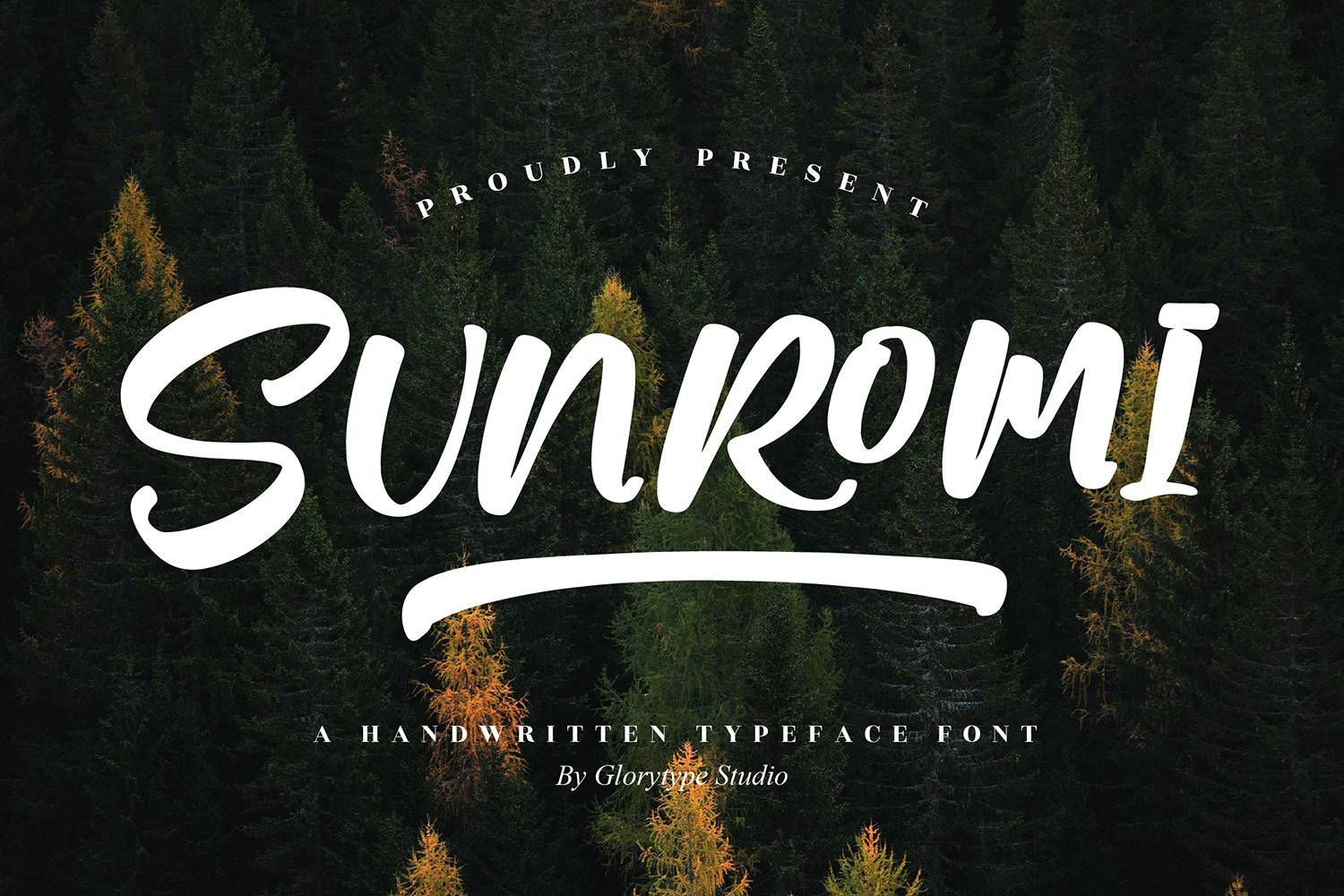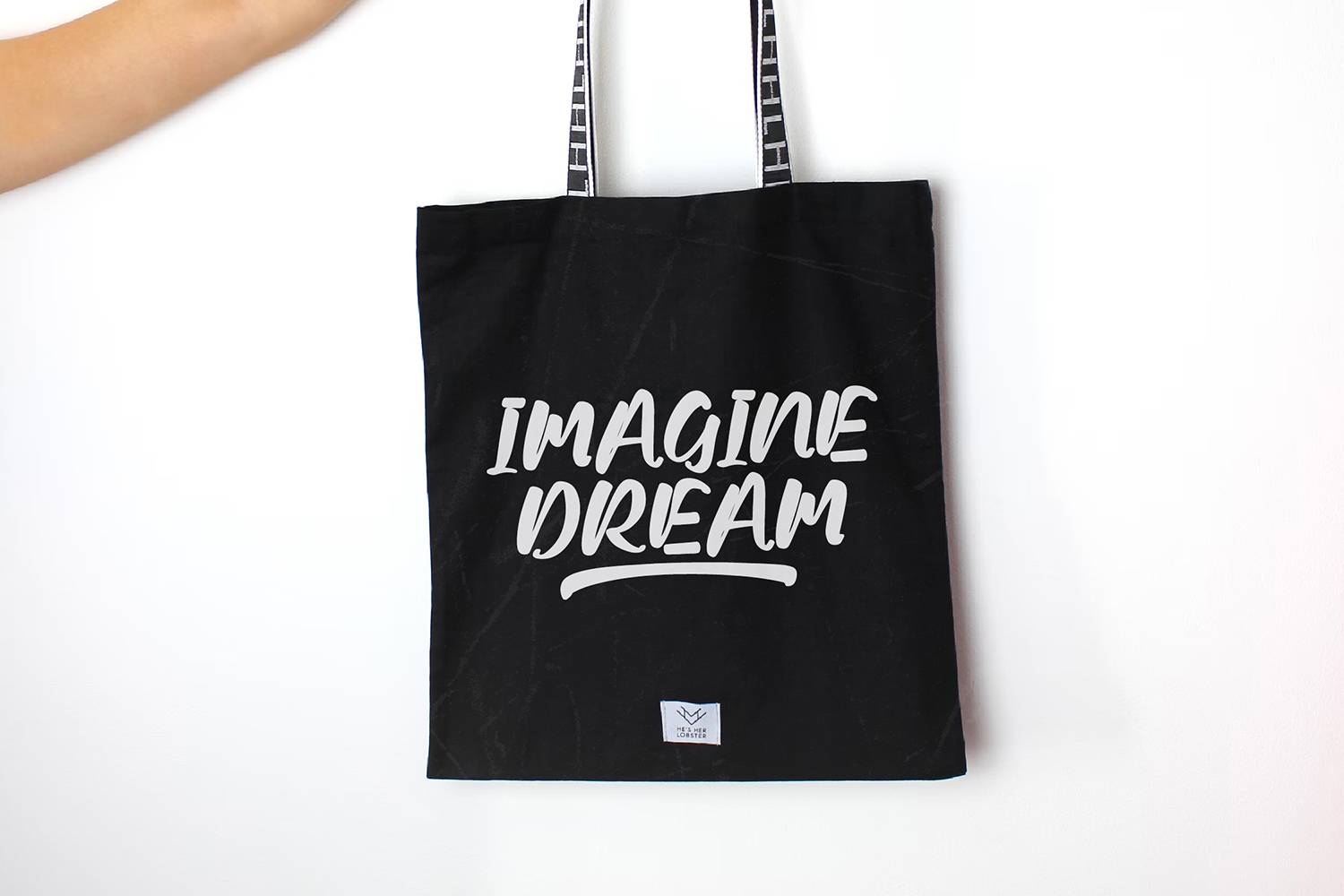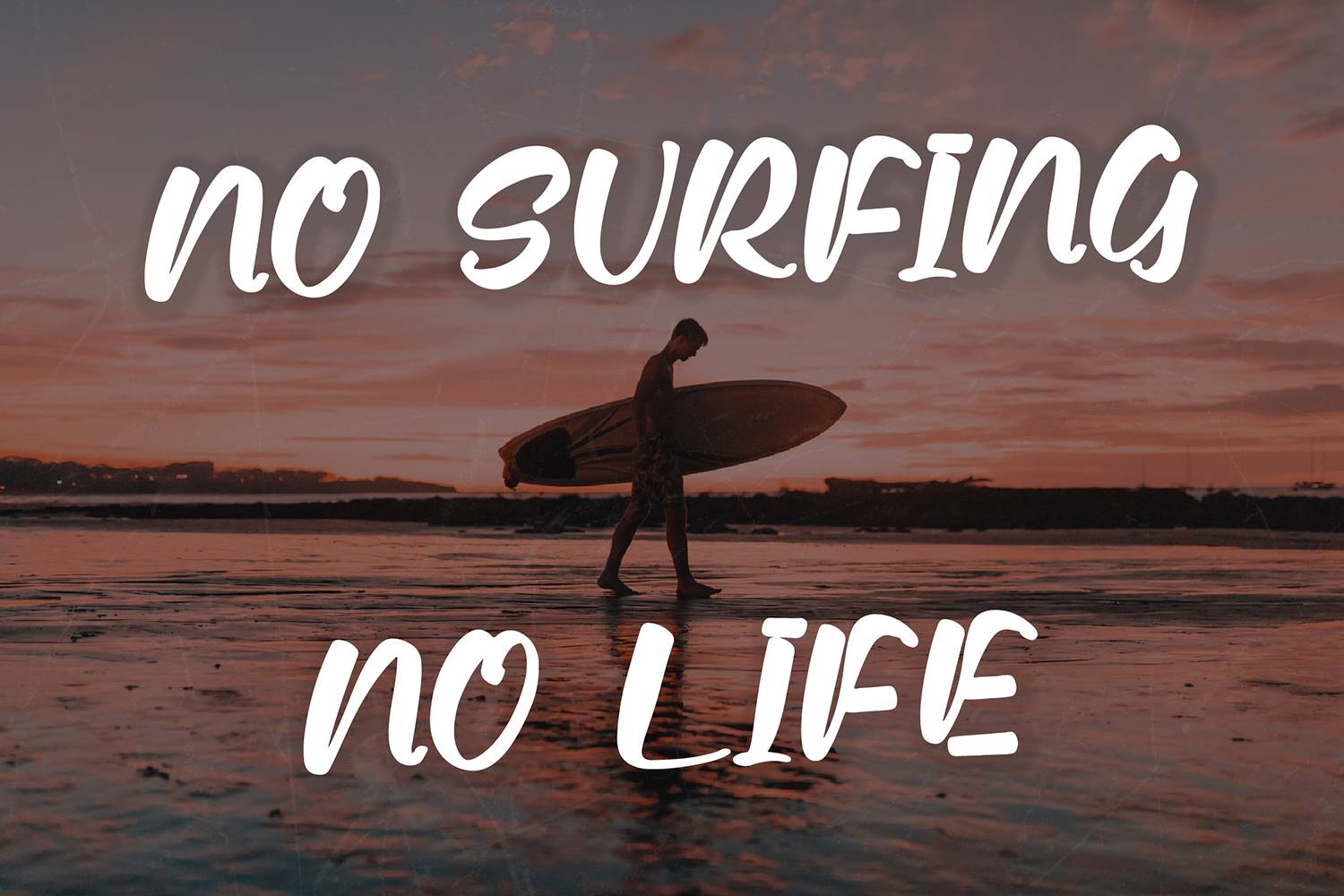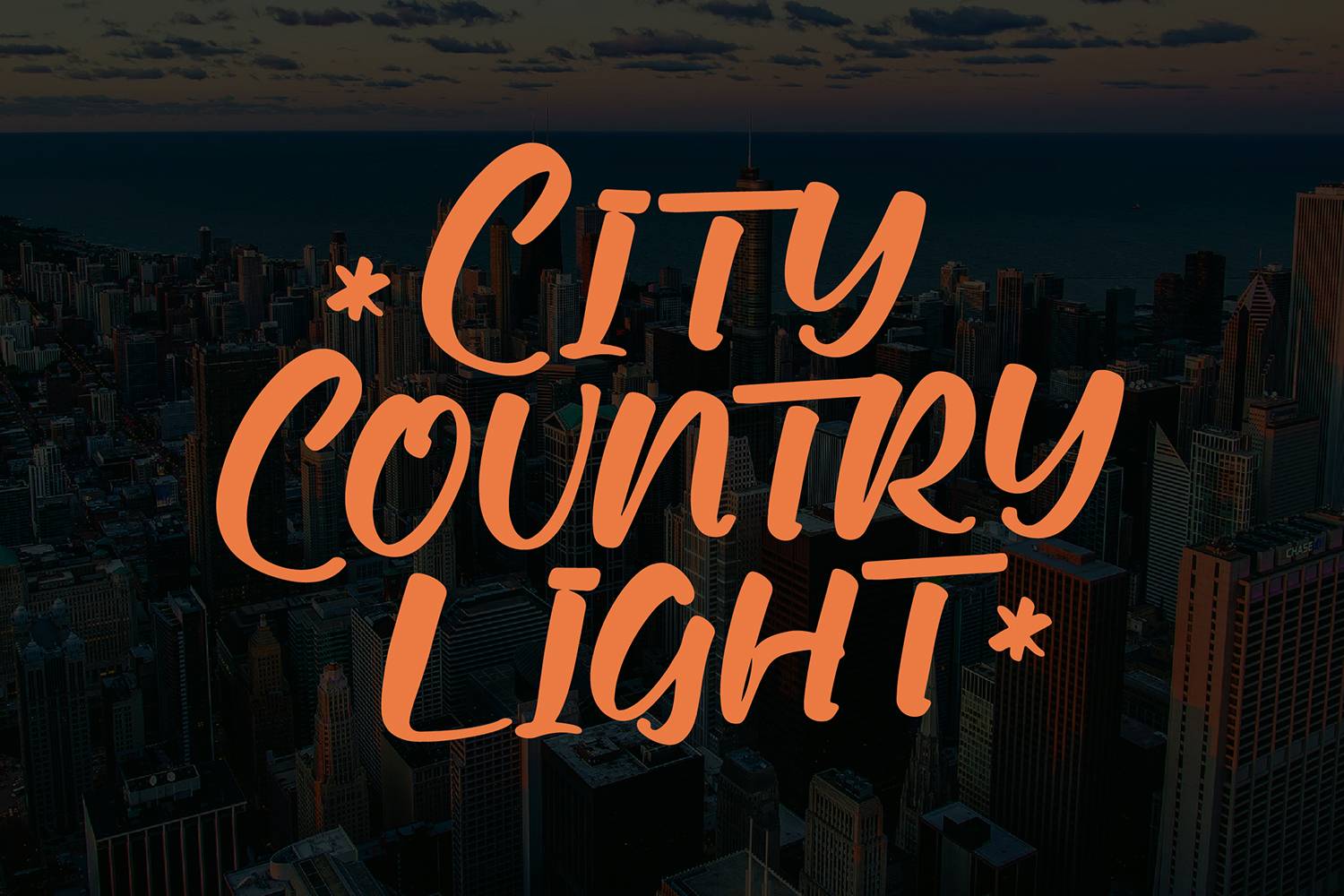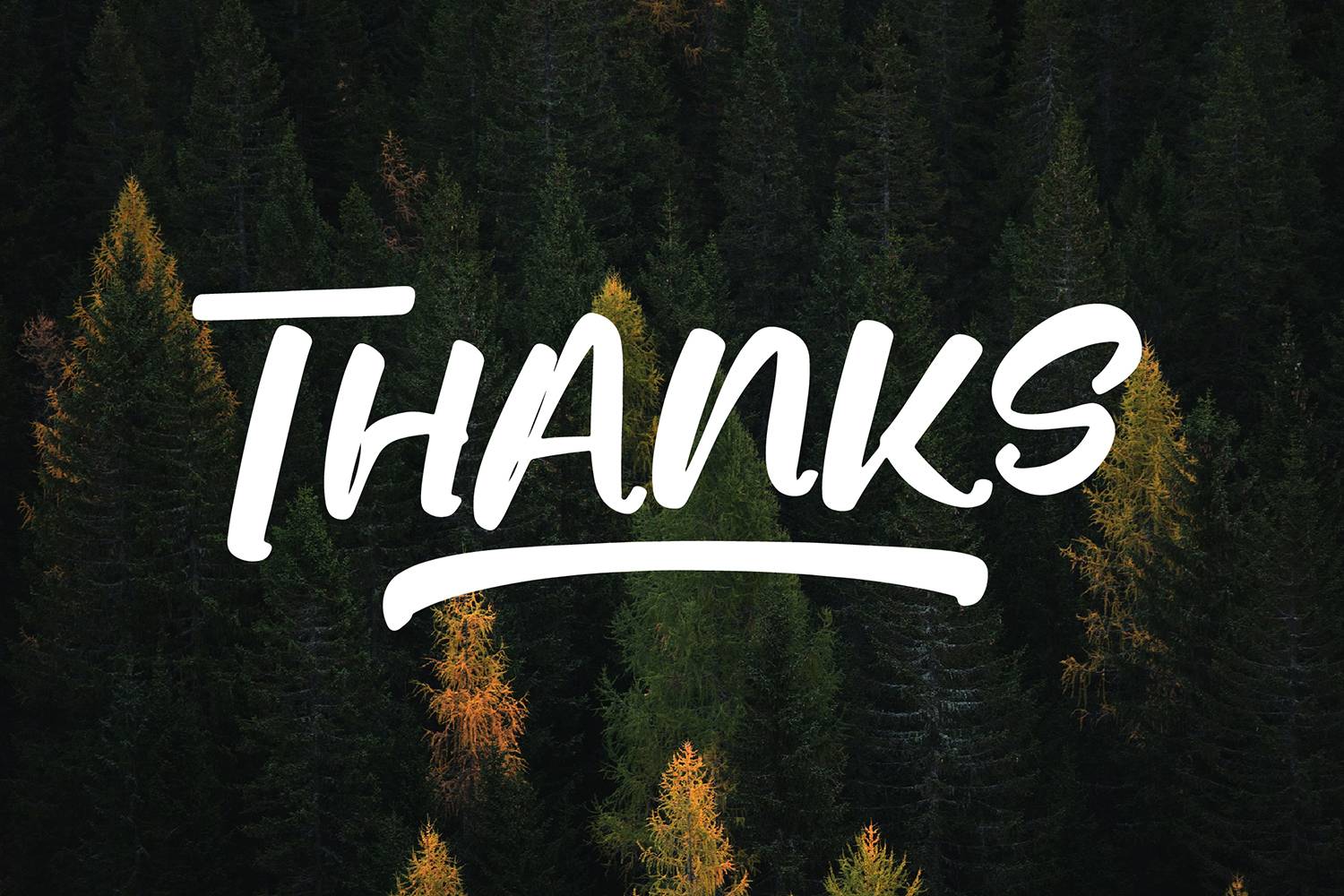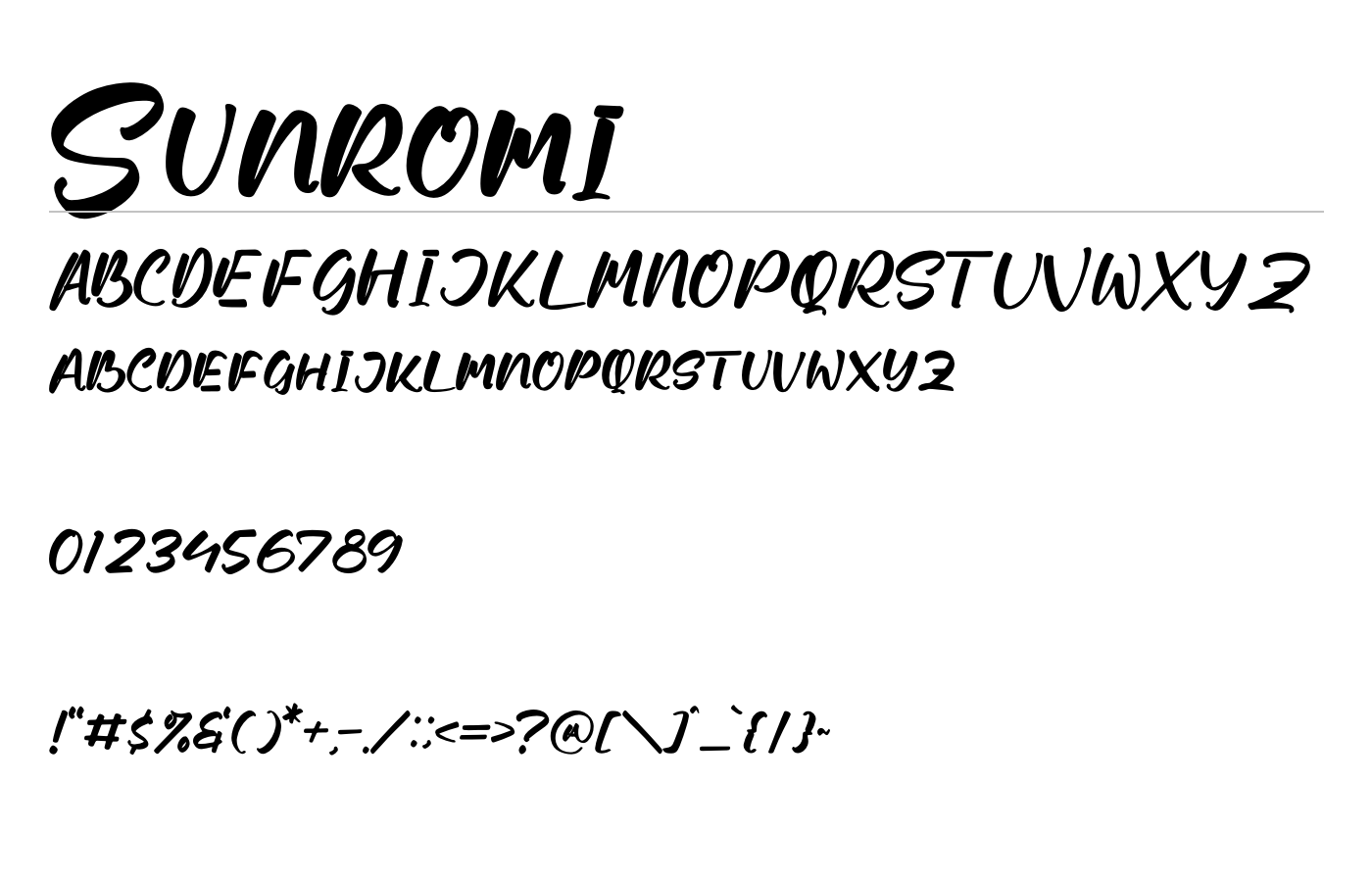
Sunromi is a lively handwritten script font with a casual, brush-like style that feels warm and approachable. Its moderately bold strokes and slightly condensed letters give it personality and energy, making it perfect for creative, informal branding, social media graphics, or playful headlines. This font adds a friendly, dynamic touch wherever a personal, expressive vibe is desired.
Sunromi Font